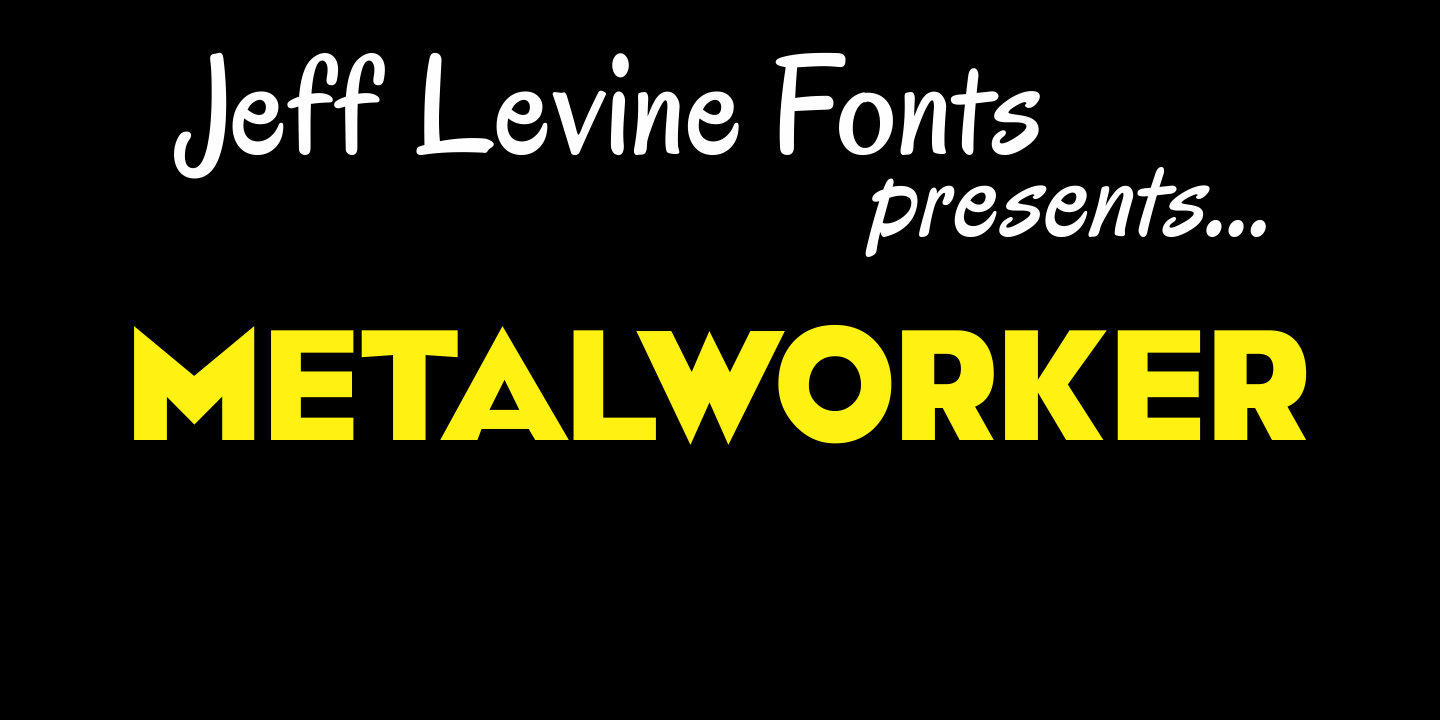
Metalworker
Buy NowMetalworker JNL is Jeff Levine's take on a perennial favorite originally known as 'Eagle”, but available under different names over the years. This bold, clean Art Deco font was the basis for Jeff's star-studded National Spirit JNL